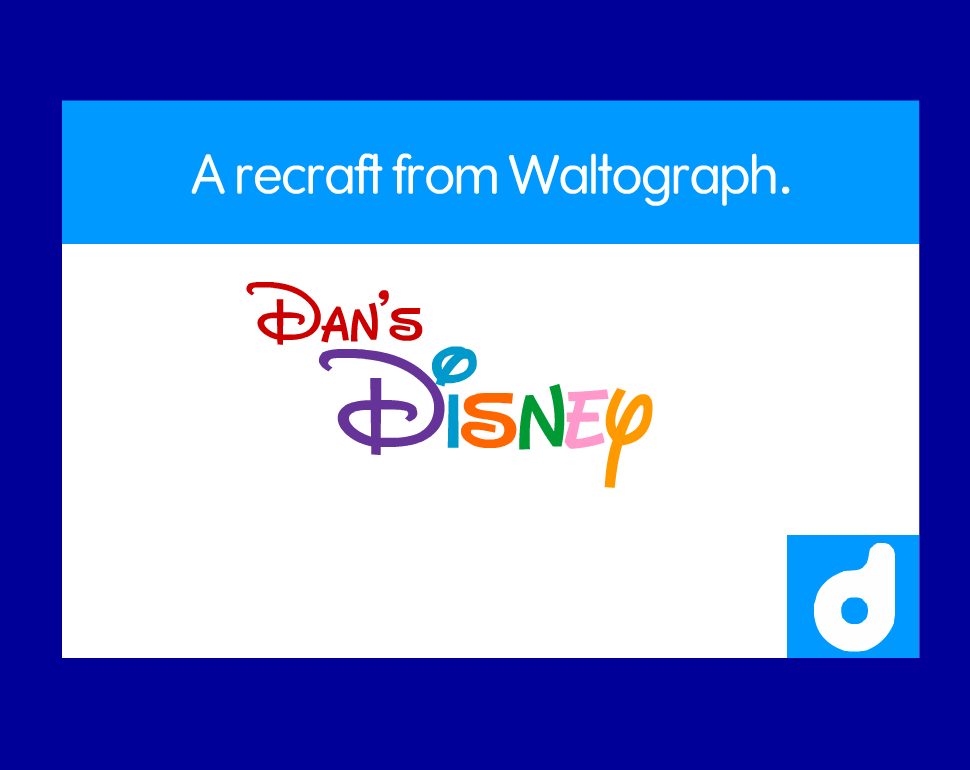
Back in 2016, I did a font similar to Waltograph, ya know, a combination of POE Foo and Waltograph. POE Foo plus Waltograph equals Dan's Disney.Related content
It's a little bit different compared to yours.
I know, but you seem to be copying it.
Does it look like I'm copying it?
It's got a similar build, so sorta.
I think you notice any difference between yours and mine.